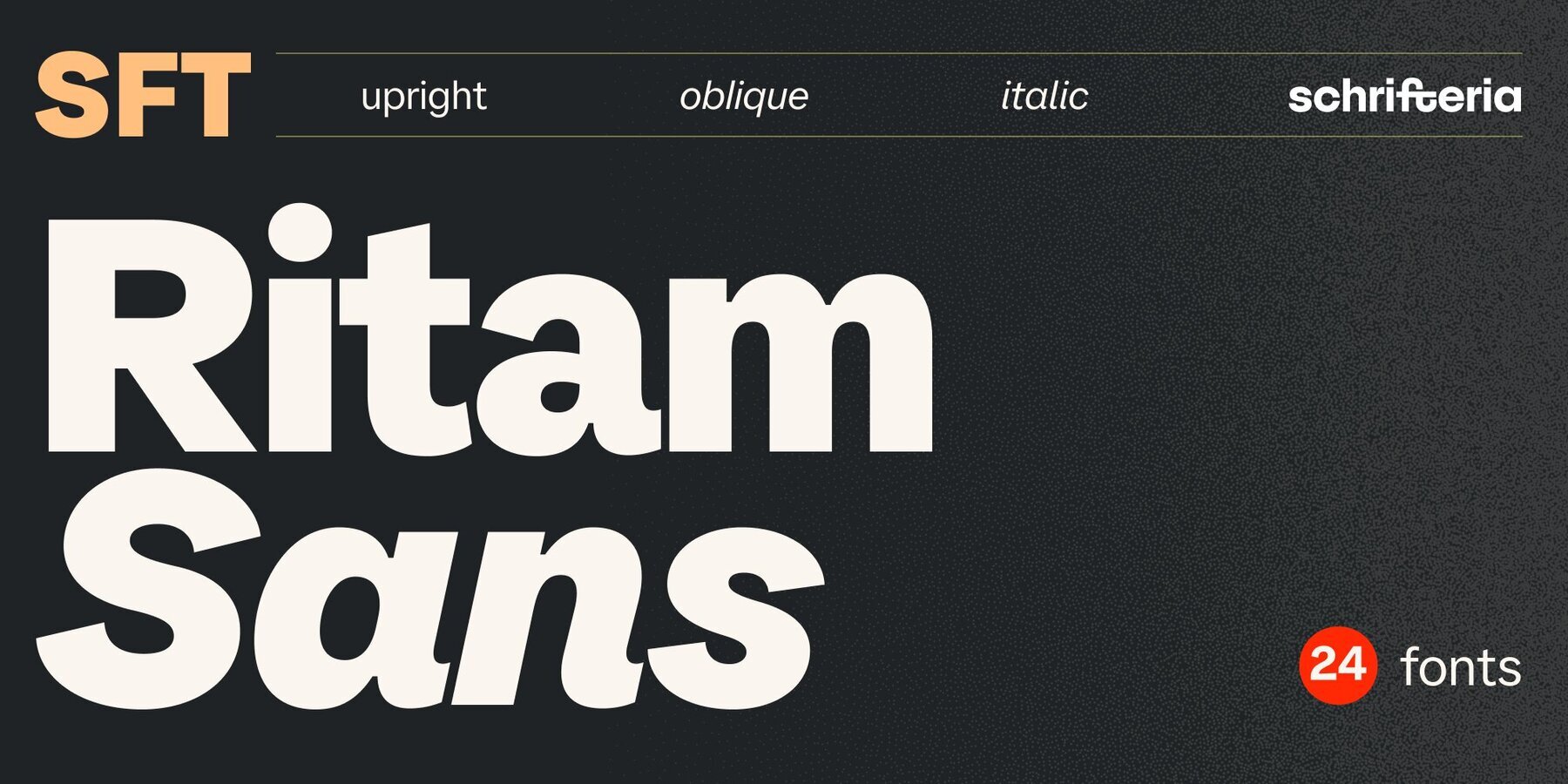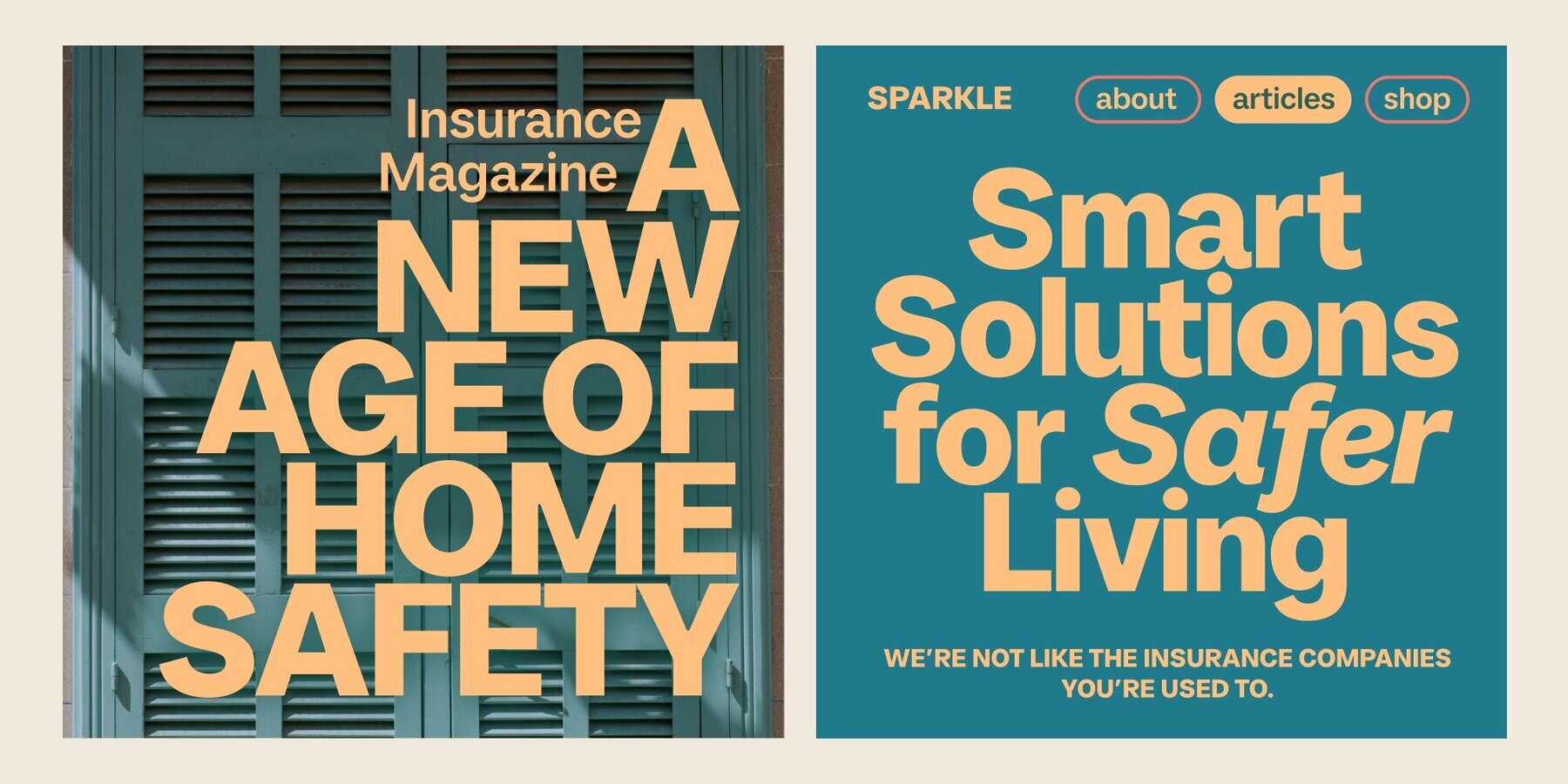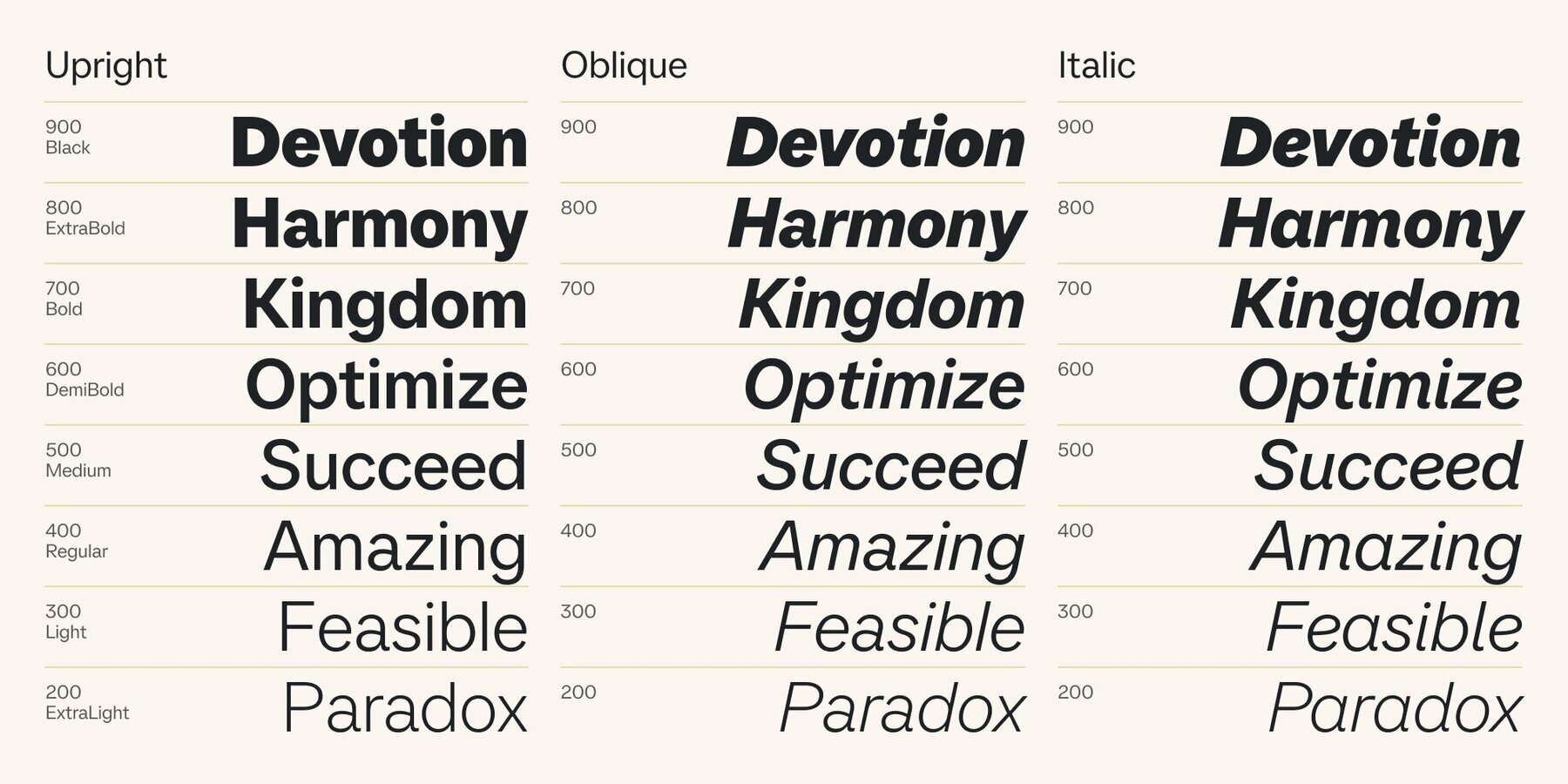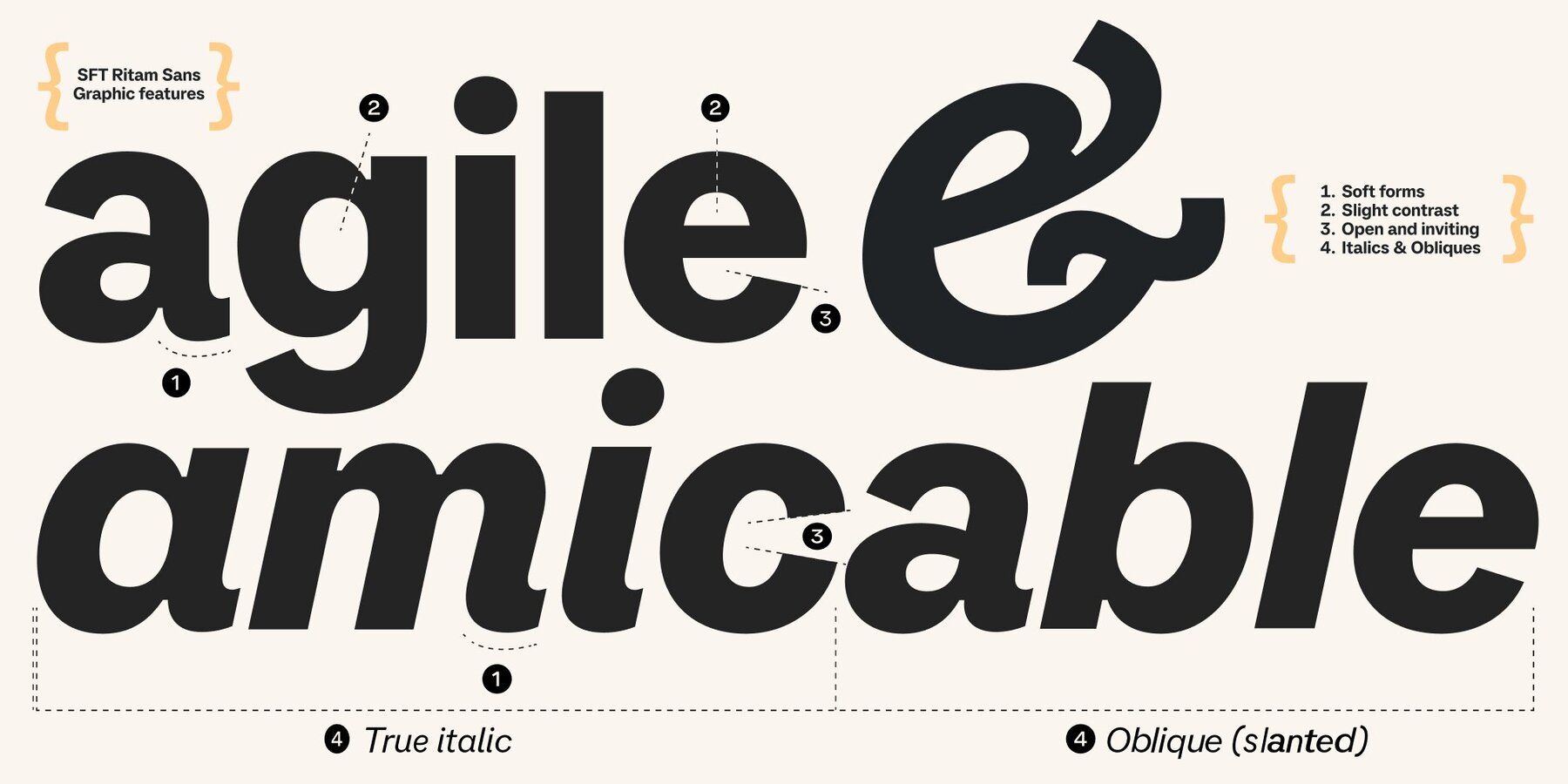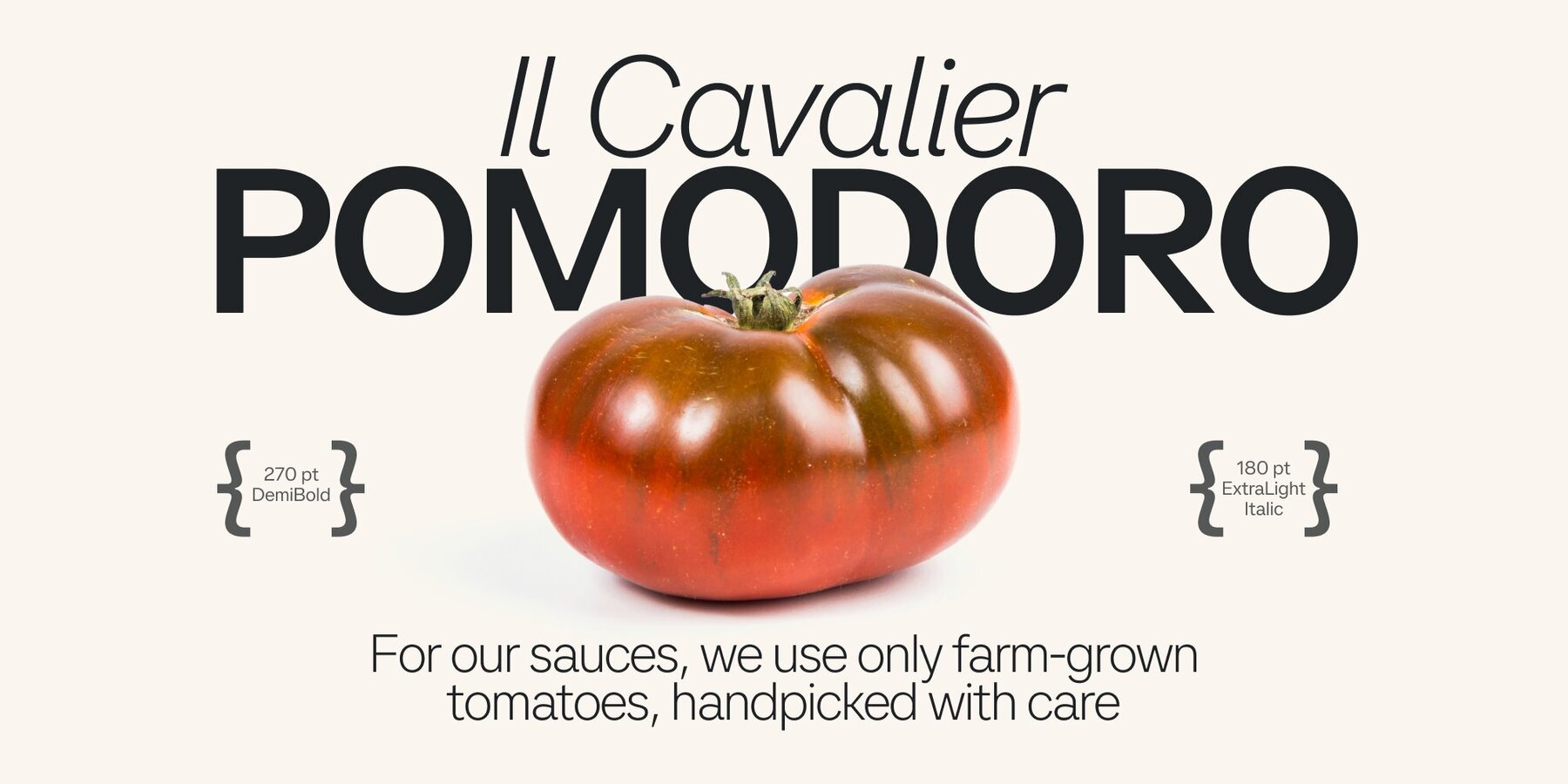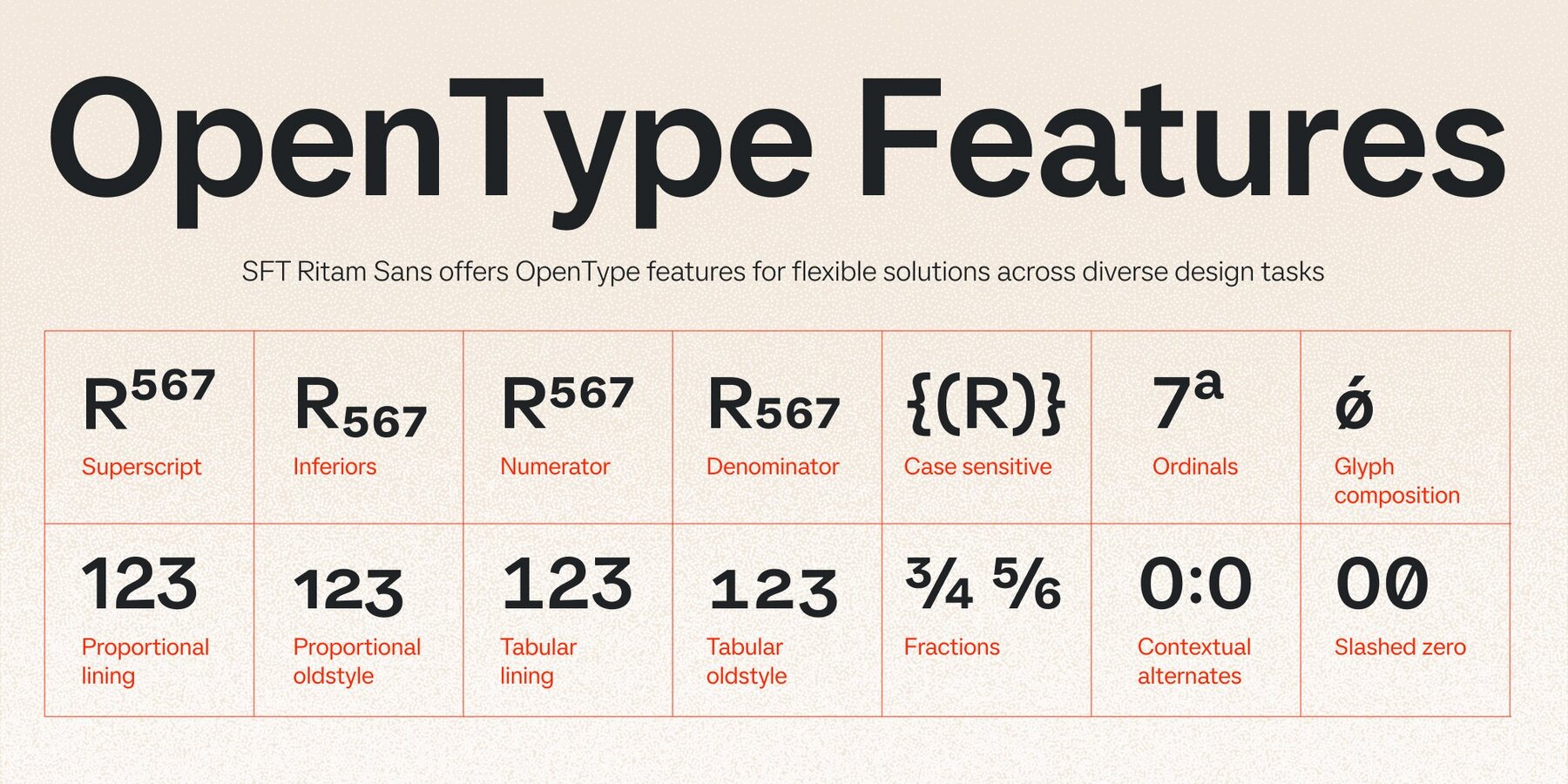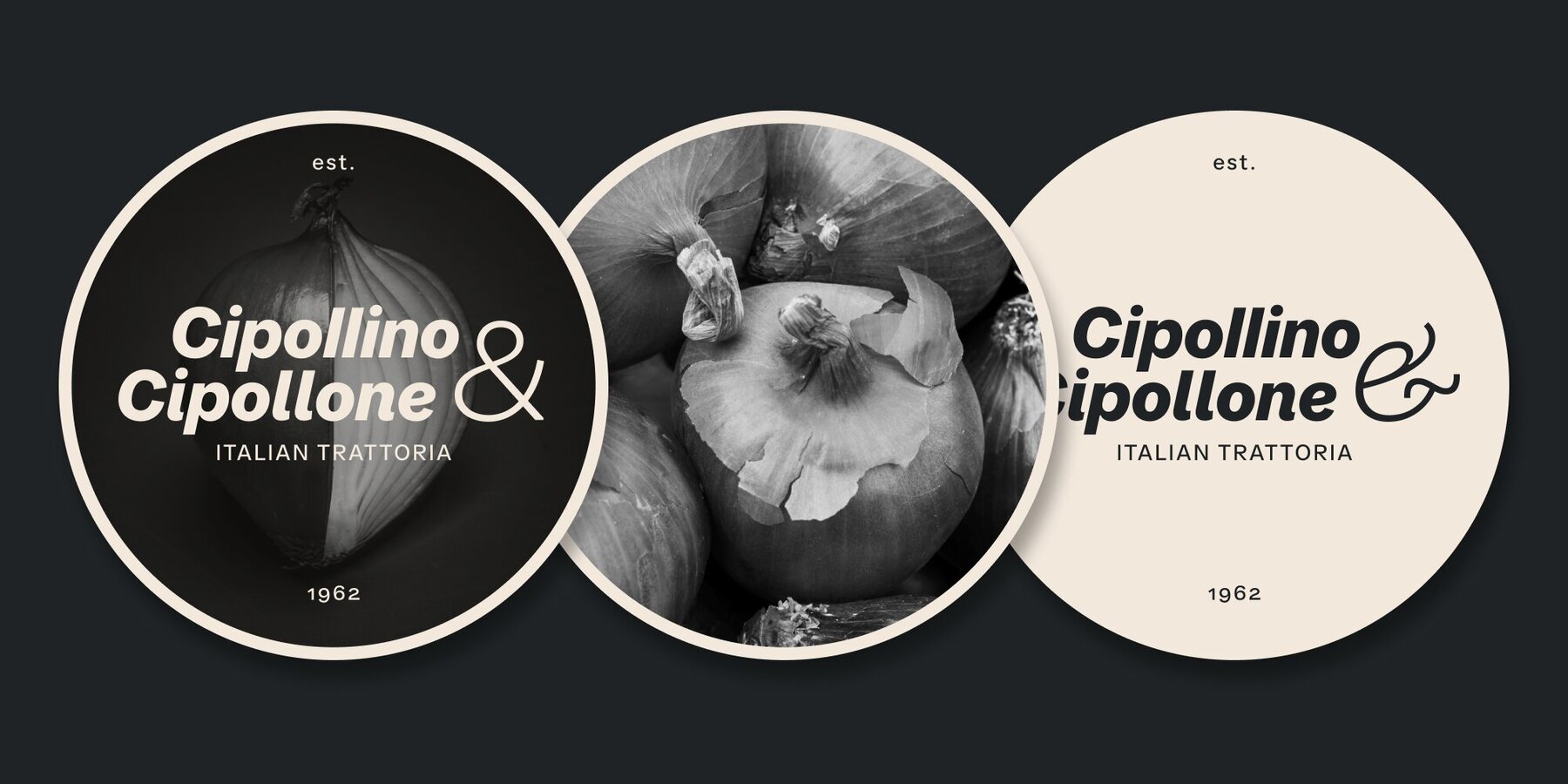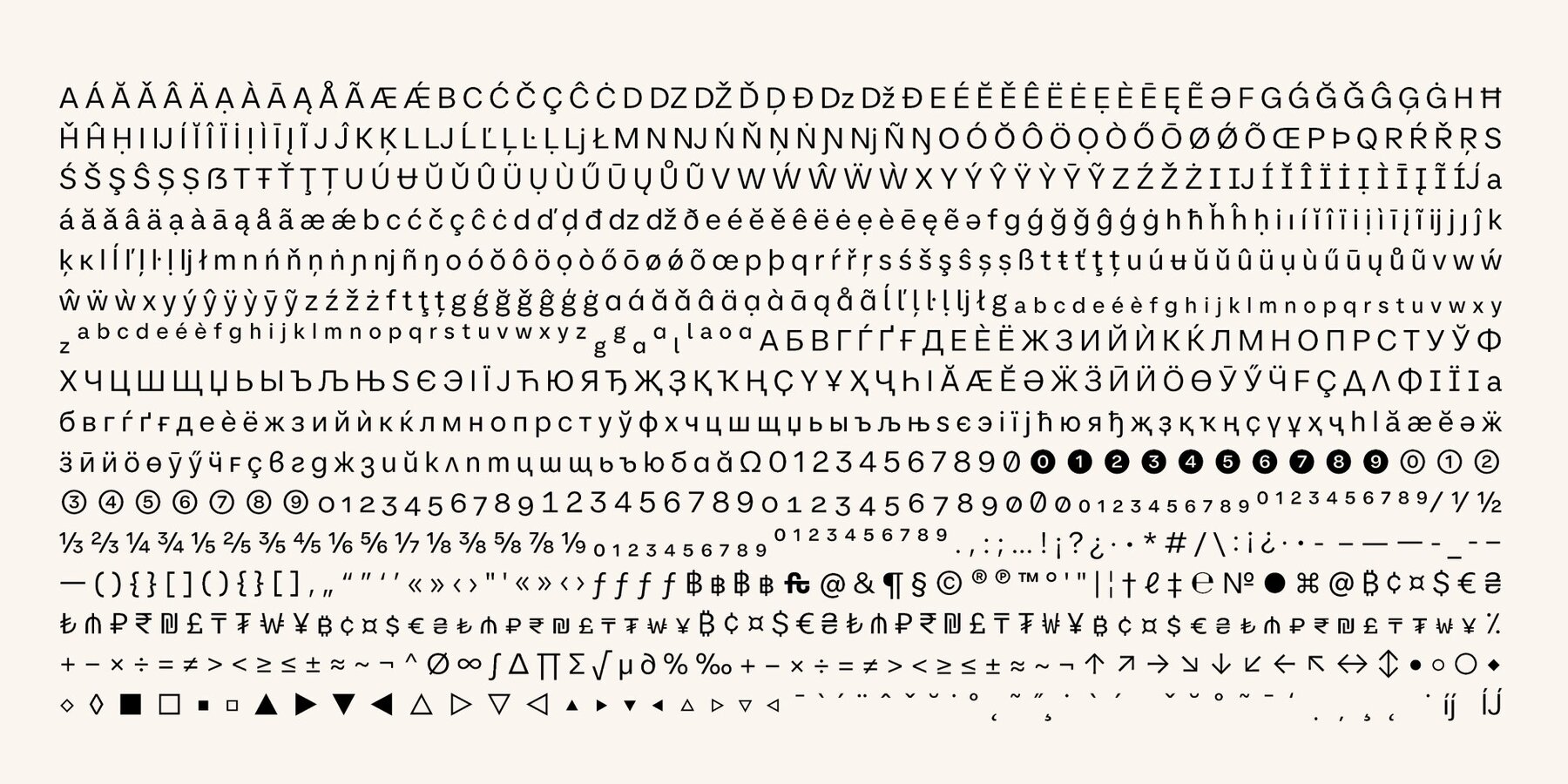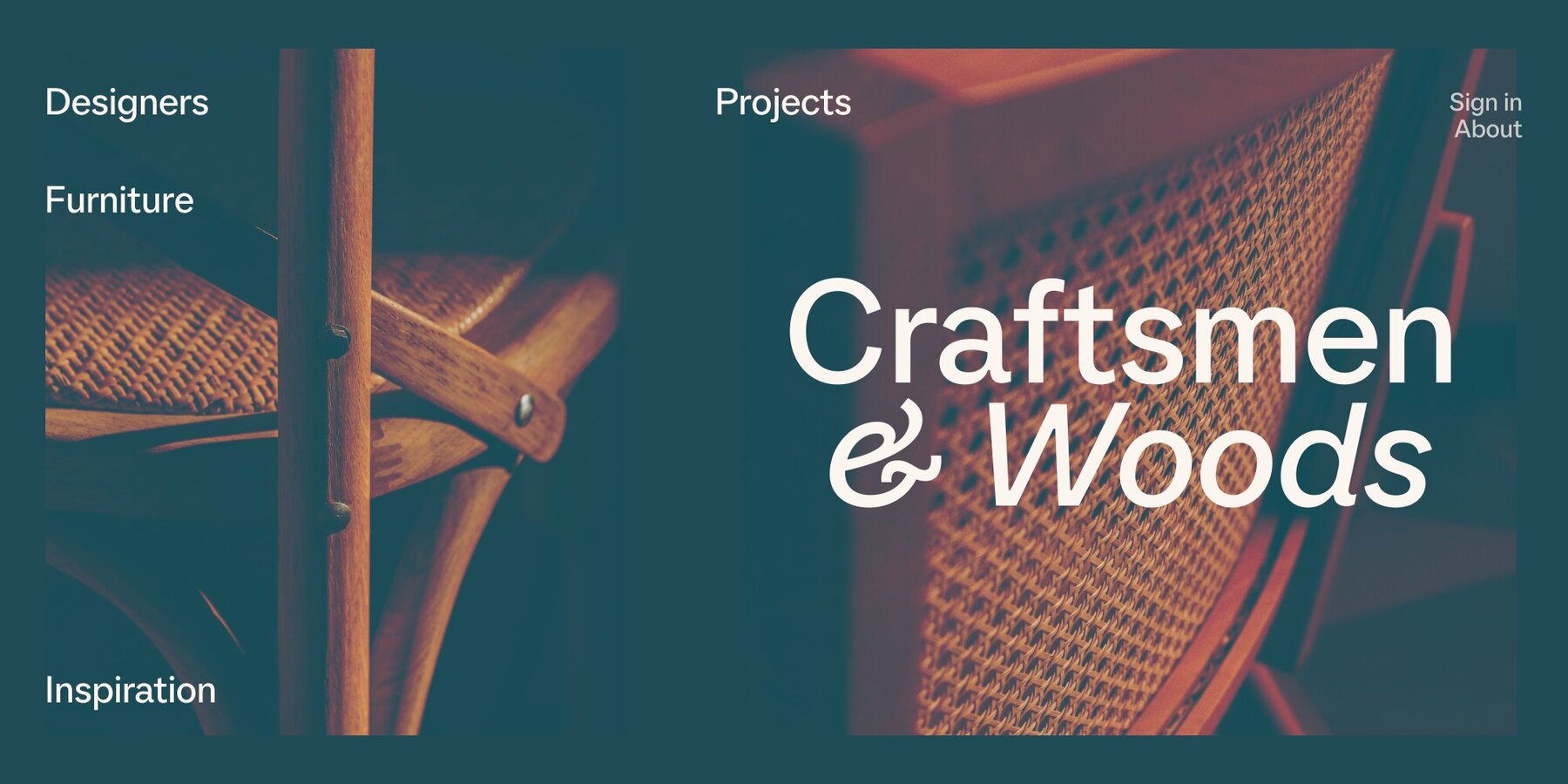
SFT Ritam Sans Font
SFT Ritam Sans is a neo-grotesque typeface with a lively, organic character inspired by the vibrant spirit of Belgrade. This font brings a fresh twist to classic grotesques, with subtle humanist touches that add warmth and personality to each weight. Perfectly suited for editorial design, branding, and advertising, SFT Ritam Sans provides a versatile option that transitions seamlessly from large display sizes to small body text, making it ideal for projects where readability and expressive detail matter. Besides the Oblique styles, SFT Ritam Sans offers True Italics, carefully crafted to add an extra layer of expressiveness. These italics stand out as a distinctive feature, offering a more dynamic and authentic slant than standard obliques and making the typeface exceptionally versatile for design contexts that require both elegance and impact. Designed with clean lines, fluid curves, and open shapes, SFT Ritam Sans conveys a sense of movement and energy while remaining highly legible. Its structure reflects the rhythm and character of Belgrade's streets, captured in smooth transitions and rounded details that bring a subtle humanistic quality to its neo-grotesque forms. With its broad character set, including multilingual support, SFT Ritam Sans is a reliable choice for global branding projects, editorial layouts, and more. Whether used for headlines, subheads, or lengthy text passages, this typeface adapts to any need while infusing a unique sense of style.